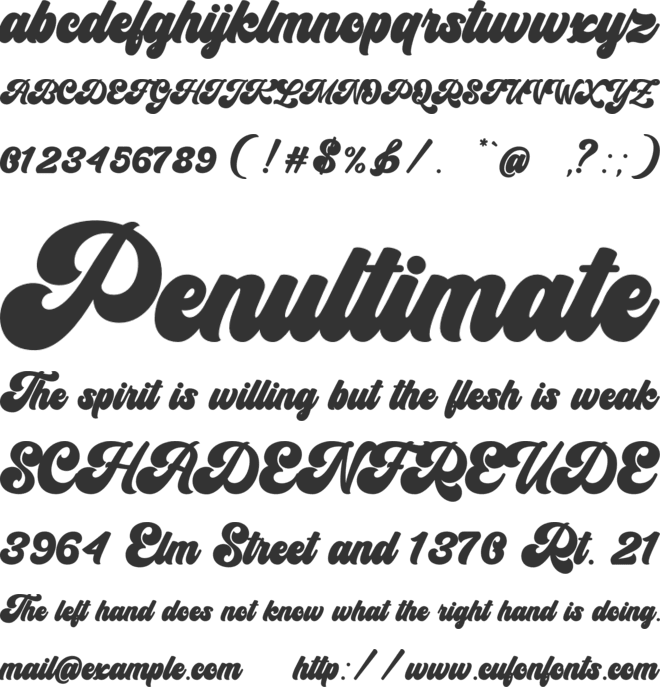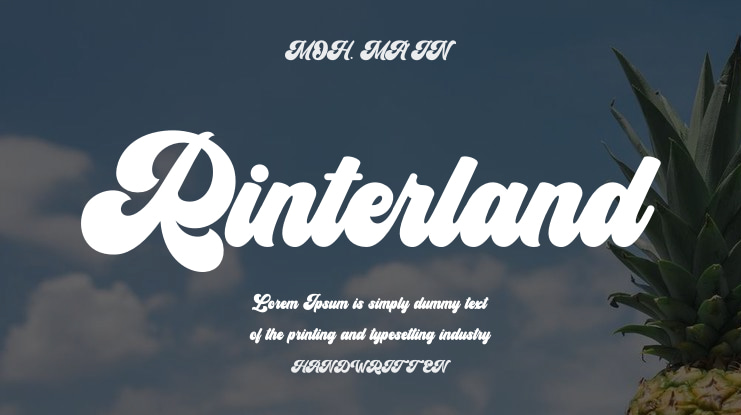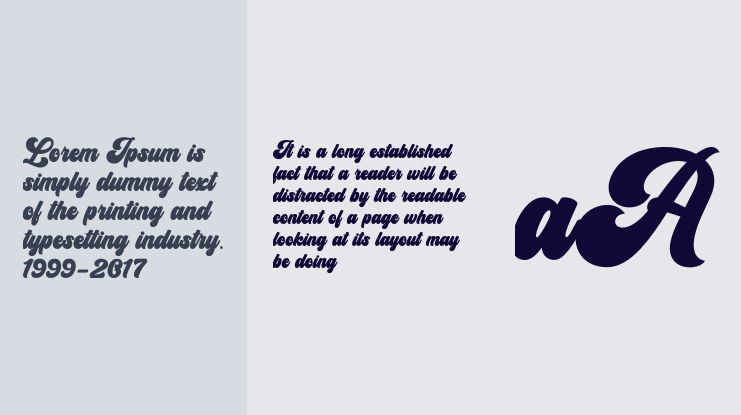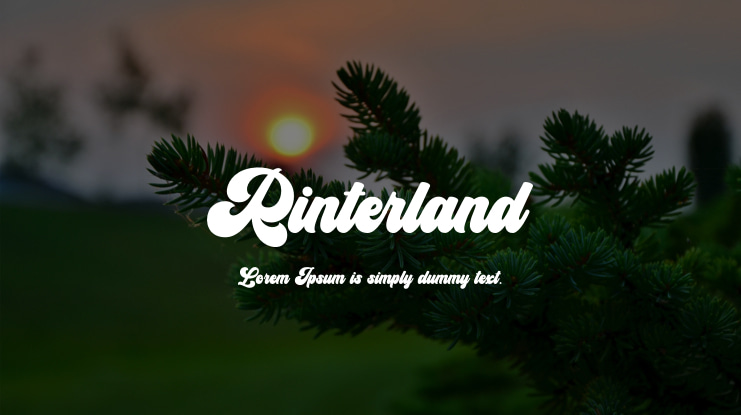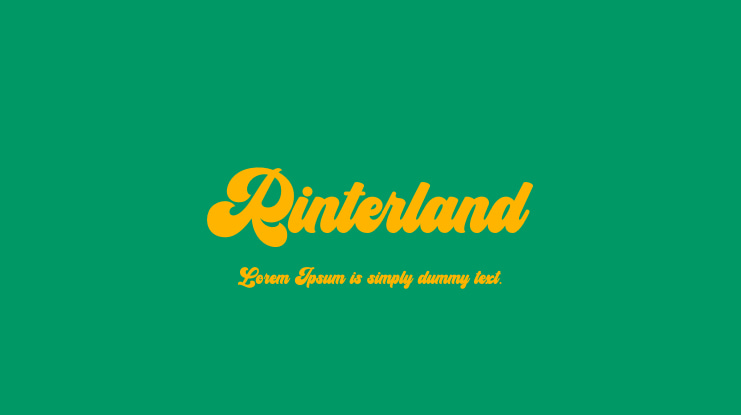
Rinterland Font
Rinterland is a vintage retro font that draws inspiration from the typography and lettering styles of the 70s and 80s, incorporating a bold typographic flair. This demo font is intended for personal use only. Donations are greatly appreciated. To access the full version and obtain a commercial license, please visit our PayPal donation link: https://PayPal.Me/payrgbstudioLink. For extended or corporate licenses, please contact us via email at . Thank you for your support and happy designing! Regards, RGB Studio.